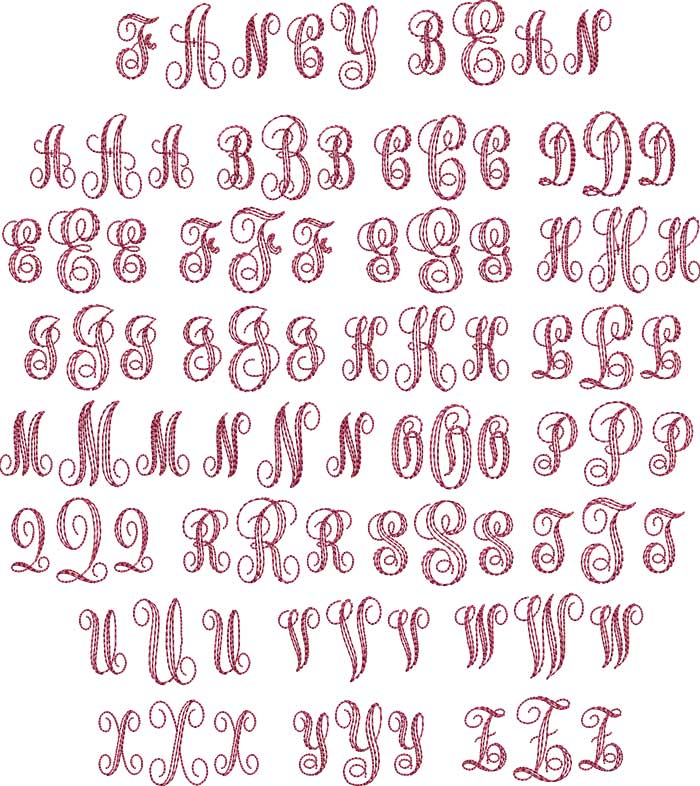
BX Embroidery Font: Fancy Bean 3-Ltr MGM
BX Embroidery Font: Fancy Monogram Bean is an upright script, stylized, fancy, 3-letter monogram machine embroidery font that includes A-Z (left, right, center) (78 total characters). 4 sizes.
Resizable casual upright script font in native BX format.
Fancy Monogram Bean is an upright script, stylized, fancy, 3-letter monogram machine embroidery font that includes A-Z (left, right, center) (78 total characters).
Each character in this alphabet is individually manually digitized; we do not use a TrueType to Stitches conversion utility to create our fonts. Additionally, stitch attributes such as stitch type, density, compensation, and underlay are optimized for each size available. Choose the size closest to what you need. Shrinking the smallest size is not recommended.